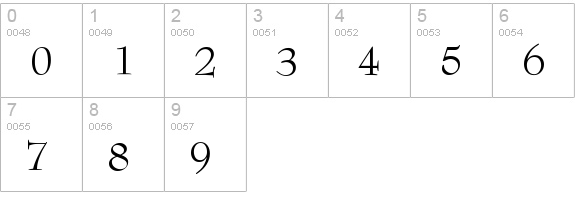
BernhardModern-Regular is the standard, neutral variant in the BernhardModern typeface family \xE2\x80\x94 well suited to general body text, paragraphs, and standard typographic work.
BernhardModern-Regular font is a timeless and elegant typeface that exudes sophistication and refinement. Its sleek lines and classic design make it perfect for a wide range of design projects, from branding to editorial layouts. The font strikes the perfect balance between modernity and tradition, making it a versatile choice for both print and digital media. What makes BernhardModern-Regular font even more appealing is that it is available for free download on FontsMarket.com. This means that you can easily access this beautiful typeface without any cost, making it a valuable addition to your font library. Whether you are a designer looking to add a touch of sophistication to your projects or a typographer seeking a classic yet contemporary font, BernhardModern-Regular is sure to impress. Download it now and elevate your designs with this exquisite typeface.